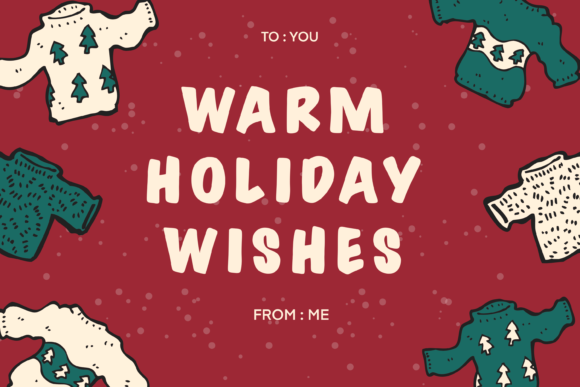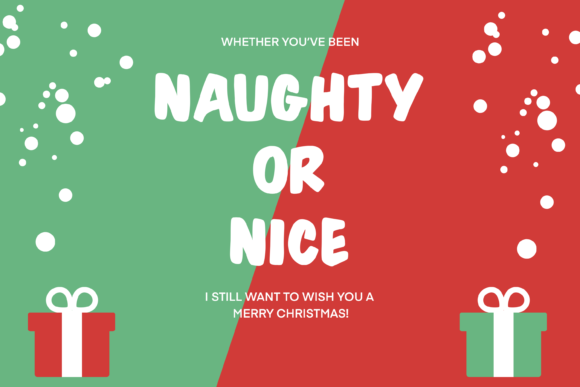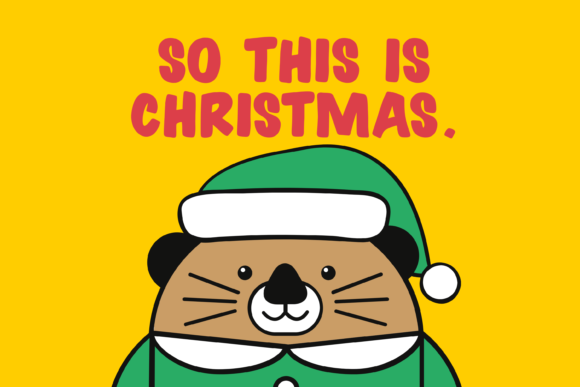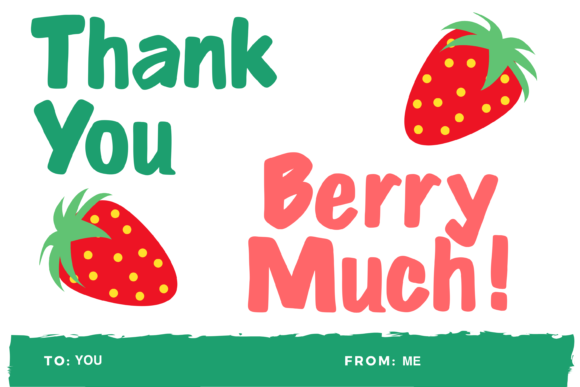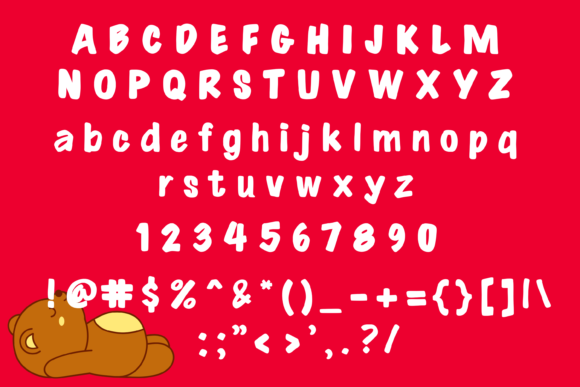
The Sweetest Addition to Your Design Toolbox: Gummy Bear Font
Who hasn’t had a moment of pure creative bliss, staring at a blank page or screen, waiting for the perfect idea to strike? For designers, these moments are what drive us to create something truly special. And sometimes, all it takes is the right font to bring that spark to life. Enter the Gummy Bear Font – a bold and cool display font that’s sure to add a touch of joy to any design project.
Whether you’re working on a cartoon-related design, a children’s game, or simply a quote that needs a playful twist, the Gummy Bear Font is a great choice. Its vibrant and energetic feel makes it perfect for capturing the attention of your audience. As a designer, you know the value of having the right tools at your disposal – and the Gummy Bear Font is definitely one to add to your collection.
- Character Count: The font contains over 300 unique characters, including uppercase and lowercase letters, numbers, and special symbols, making it suitable for a wide range of applications.
- Unique Characteristics: The Gummy Bear Font features a bold, playful, and colorful design, with rounded edges and a fun, childlike feel, making it ideal for use in children’s books, educational materials, and other applications where a fun and engaging font is desired.
Gummy Bear Font Review
The Gummy Bear Font is a unique and playful font that is sure to grab attention. It’s perfect for adding a fun touch to your designs, especially when targeting a younger audience. Here’s what works well:
- ✨ It’s extremely versatile and can be used for a wide range of projects, from social media graphics to posters.
- ✨ The font is highly customizable, allowing you to adjust the color, size, and style to fit your needs.
- ✨ The font is also highly legible, making it easy to read even in small sizes.
- ⚠️ The font may not be suitable for formal or professional designs, as it can come across as too playful or childish.
- ⚠️ The font may not be as effective on larger scales, as it can lose its impact and become difficult to read.
- ⚠️ Some users may find the font too overwhelming or busy, especially when used in large quantities.
Overall, I would give the Gummy Bear Font 4 out of 5 stars. While it has its limitations, it’s a great choice for designers looking to add a fun and playful touch to their designs. Just be sure to use it in moderation and in the right context.
For best results, use Gummy Bear Font in bold or italic styles to emphasize text. It’s perfect for:
- Food and drink branding
- Fun and playful social media graphics